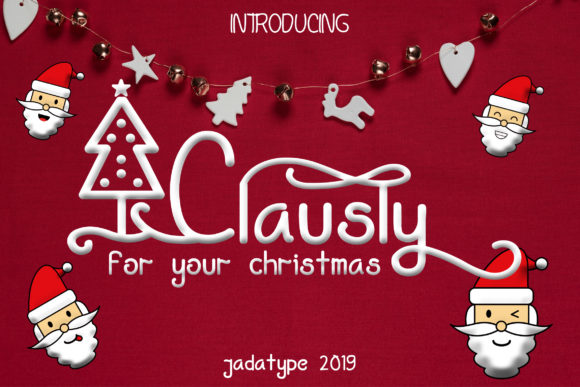
Clausly Font: Unwrap the Festive Spirit in Every Design!
In a world where fonts reign supreme, Clausly Font emerges as the ultimate Christmas companion, transforming your designs into captivating works of art. Its enchanting dance of characters will add a sprinkle of holiday magic to your creations, leaving a lasting impression on all who behold them.
Crafted with meticulous attention to detail, Clausly Font embodies the spirit of Christmas with every twist and turn of its curves. Its delicate strokes evoke the warmth of a cozy fireplace, while its playful shapes capture the joy and wonder of the season. Let your designs sparkle with Clausly Font, as each letter becomes a twinkling ornament, spreading festive cheer wherever it goes.
Unleash your creativity and indulge in the limitless design possibilities that Clausly Font offers. Whether you're creating heartfelt Christmas cards, eye-catching social media posts, or wrapping your gifts with personalized tags, this font is your trusted ally. Its versatility extends beyond the holiday season, making it a cherished addition to your font collection all year round.
Transport your audience to a winter wonderland with Clausly Font. Picture your designs adorned with this festive font, becoming cherished keepsakes that evoke fond memories of the holiday season. Clausly Font isn't just a font; it's an experience that will ignite the imagination and leave an indelible mark on your creative endeavors.
As a special bonus, Clausly Font comes with an exclusive collection of 20+ adorable Santa Claus vectors, ready to add a touch of whimsical charm to your projects. These delightful vectors are the perfect companions for Clausly Font, bringing your Christmas designs to life with a cast of jolly characters.